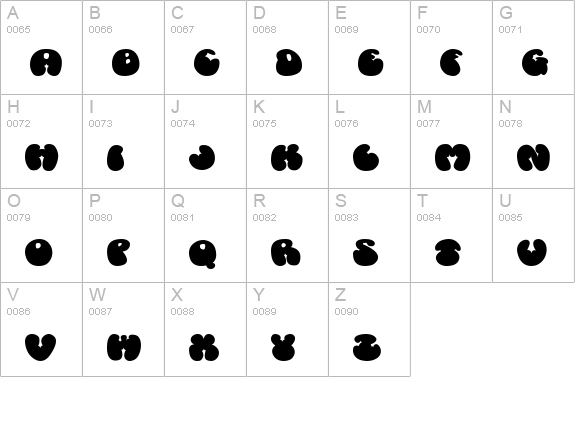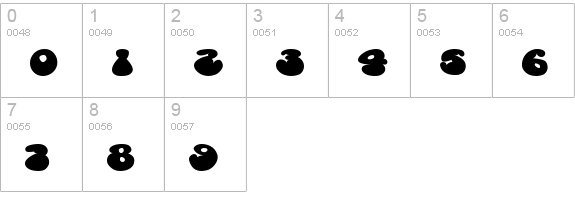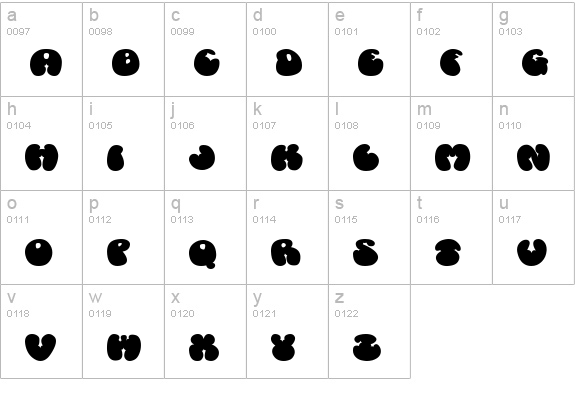
Cosmoscandy Font Details
Cosmoscandy font is a whimsical and playful typeface that will add a touch of magic to your design projects. With its rounded edges and charming aesthetic, this font is perfect for creating eye-catching headlines, invitations, posters, and more. Whether you're working on a project for a children's book, a sweet-themed event, or simply want to infuse some fun into your designs, Cosmoscandy font has got you covered. The best part about Cosmoscandy font is that it is completely free to download at FontsMarket.com. You can easily access this delightful font and start using it in your projects right away. Don't miss out on the opportunity to add a sprinkle of sweetness to your designs with Cosmoscandy font - get your free download today!